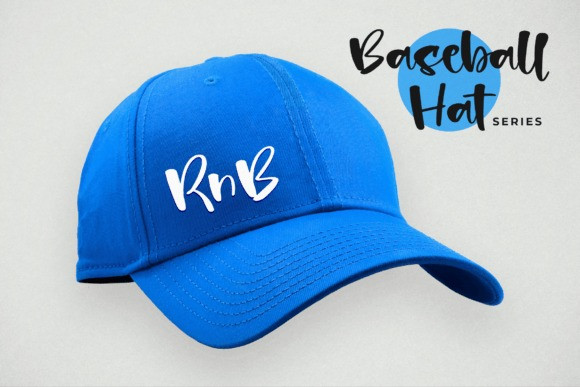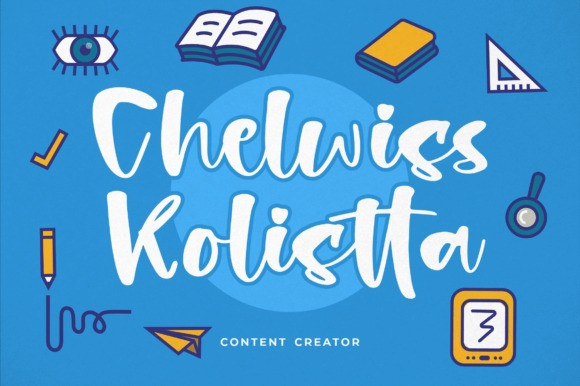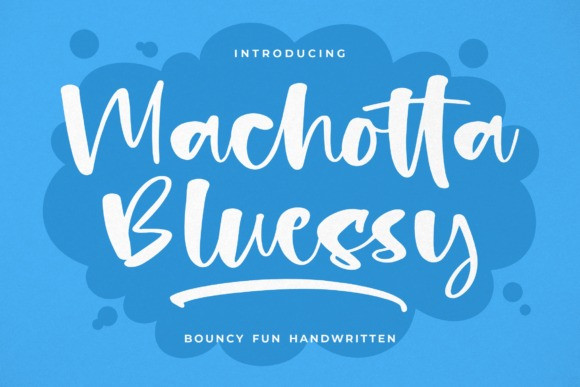
Machotta Bluessy Font
Machotta Bluessy Font – Bouncy Fun Handwritten suitable for any projects such as logos, branding projects, homeware designs, product packaging, mugs, quotes, posters, shopping bags, t-shirts, book covers, name cards, invitation cards, greeting cards, labels, photography, watermark, special events, and all your other lovely projects that need a beautiful script taste.